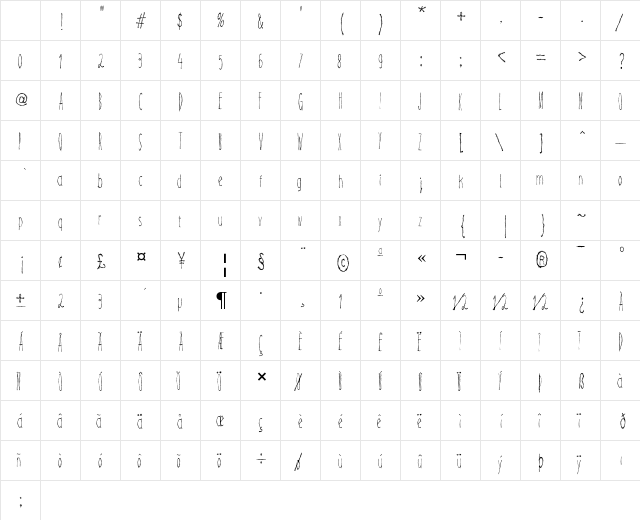
Complete Magical Cord Regular glyph index. Displaying only characters natively supported by Magical Cord Regular font.
Magical Cord is a composed and adaptable typeface that performs quietly and consistently across a wide range of design contexts.